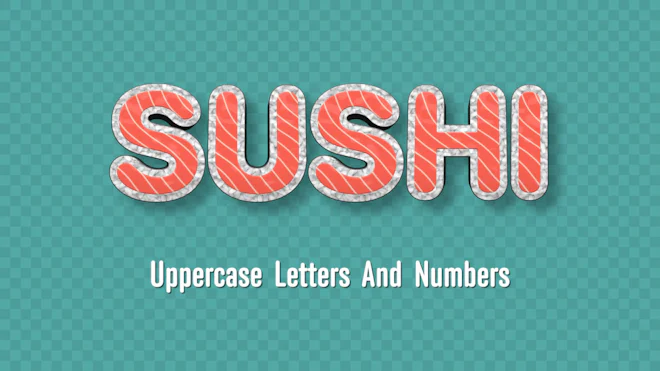
This stock motion graphics video pack includes 36 clips of floating and spinning sushi uppercase letters and numbers on a transparent alpha channel background in a seamless loop.